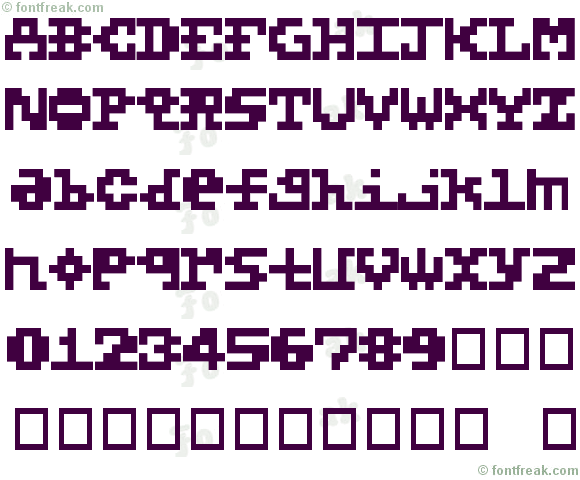
5X5 Basic
The 5x5 font, designed by Juan A. Zamarripa in 2002, is a striking display typeface that captures attention with its unique visual identity. This freeware font is characterized by its clean, geometric forms, which make it particularly versatile for a variety of design applications. The strokes are consistently bold, providing a sturdy presence without overwhelming the viewer. The font's lack of contrast and even spacing contributes to its modern aesthetic, making it suitable for both digital and print media.
The 5x5 font excels in specific use cases, particularly in areas where legibility and style are paramount. It is an excellent choice for restaurant menus, where clear communication of dishes and prices is essential. Additionally, graphic designers may find it fitting for creating eye-catching movie posters that need to convey a sense of contemporary flair. For small business owners, this font can enhance branding efforts, particularly in signage and promotional materials. Furthermore, it can be effectively utilized in social media graphics, where it stands out among the clutter of typical fonts.
The target audience for the 5x5 font includes graphic designers, small business owners, and content creators seeking a distinctive typeface that enhances their visual message. This font's unique characteristics allow for creative expression while maintaining readability, crucial for engaging an audience.
What sets the 5x5 font apart is its perfect blend of modernity and simplicity, enabling it to adapt to various design contexts without losing its charm. Whether you're a designer looking for a fresh addition to your toolkit or a business owner wanting to elevate your brand's aesthetic, the 5x5 font free download is a valuable resource that delivers both style and functionality.